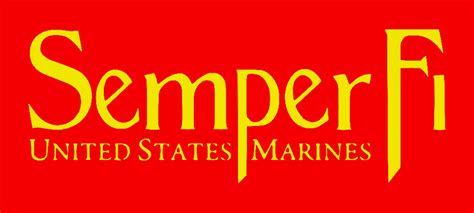
Military fonts are used in designs that need to evoke a sense of strength and discipline. Web semper fi free font. Browse by alphabetical listing, by style, by author or by popularity. Web archive of freely downloadable fonts.
Military fonts are used in designs that need to evoke a sense of strength and discipline. Web semper fi free font. Browse by alphabetical listing, by style, by author or by popularity. Military fonts are used in designs that need to evoke a sense of strength and discipline. Web archive of freely downloadable fonts.